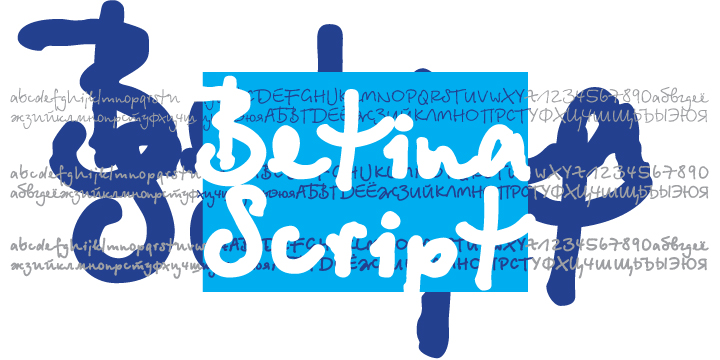
Betina Script Font is ideal for wedding invitations, greeting cards, romantic branding, handwritten logos, calligraphy projects, feminine product packaging, beauty salon signage, and elegant social media graphics.
What makes Betina Script Font exciting is its authentic handwritten charm and flowing elegance, featuring natural script letterforms that capture the beauty of traditional calligraphy while offering modern versatility and readability.
The Betina Script Font family includes Regular, Bold, and Ornamental versions, plus decorative swashes, ligatures, and alternative characters that enhance the font's artistic appeal and customization options.
Betina Script Font Free Download embodies the perfect fusion of traditional calligraphy artistry and contemporary design needs. This exquisite typeface brings the warmth and personal touch of handwritten lettering to digital projects, creating an intimate connection between brands and their audiences. The font's flowing curves and graceful letterforms evoke feelings of elegance, romance, and sophistication that resonate particularly well with lifestyle and luxury brands.
Creative professionals consistently choose Betina Script Font for projects that require a personal, handcrafted aesthetic. The typeface's organic flow and natural rhythm make it exceptionally suitable for brands in the wedding, beauty, fashion, and lifestyle industries where emotional connection and feminine appeal are essential. Each stroke has been carefully designed to maintain the authentic feel of hand lettering while ensuring consistency and legibility across various applications.
The artistic qualities of Betina Script Font extend beyond mere visual appeal to include practical functionality for modern design requirements. Despite its decorative nature, the font maintains excellent readability when used appropriately, making it suitable for both display purposes and shorter text applications. The extensive character set includes special flourishes and decorative elements that allow designers to create truly unique and personalized typography solutions.
Boutique businesses, wedding planners, and creative agencies frequently incorporate Betina Script Font into their brand identity systems because of its ability to convey authenticity and craftsmanship. The font's handwritten quality helps establish trust and personal connection with customers who value artisanal approaches and attention to detail in their preferred brands and services.